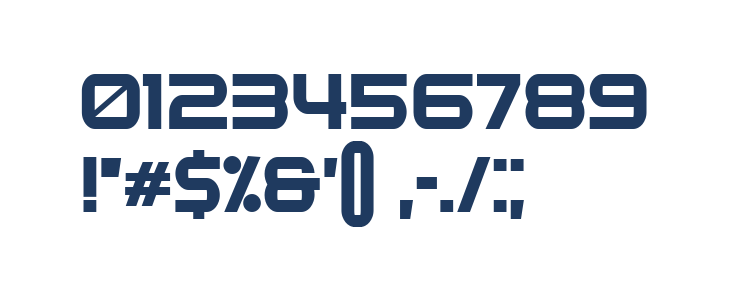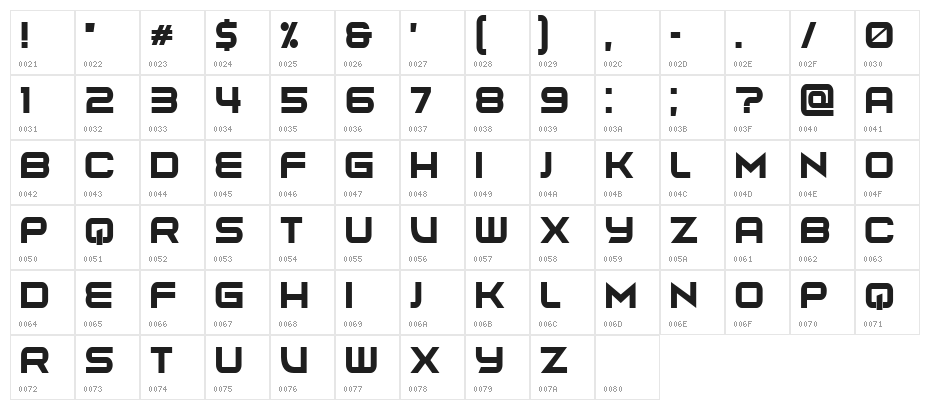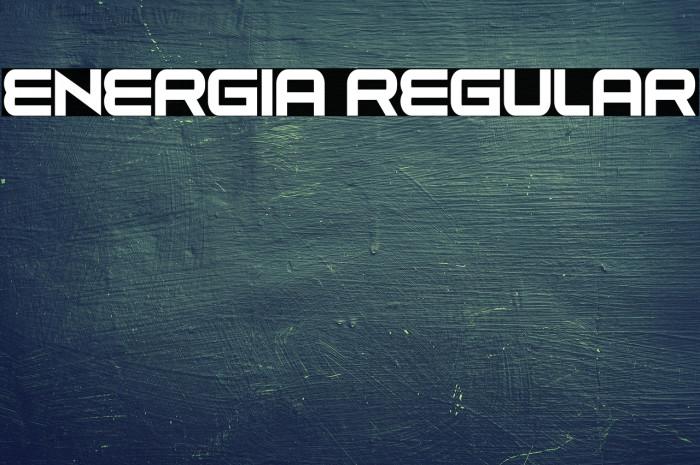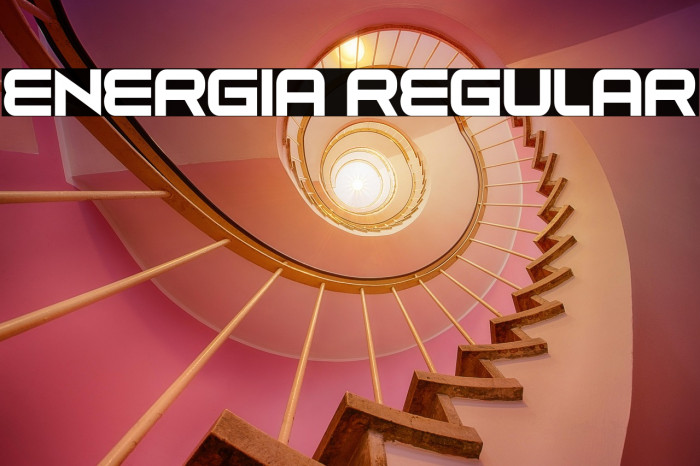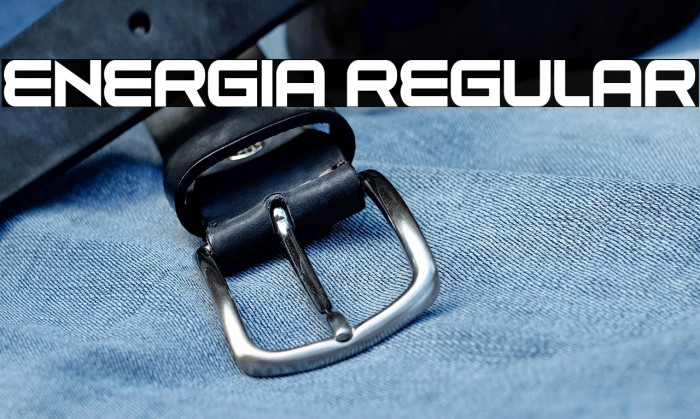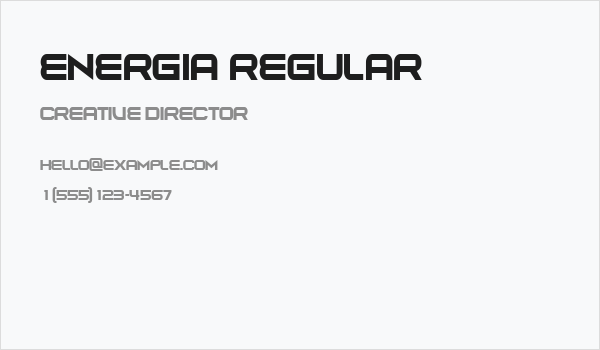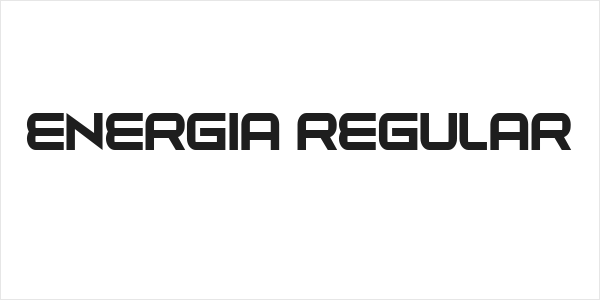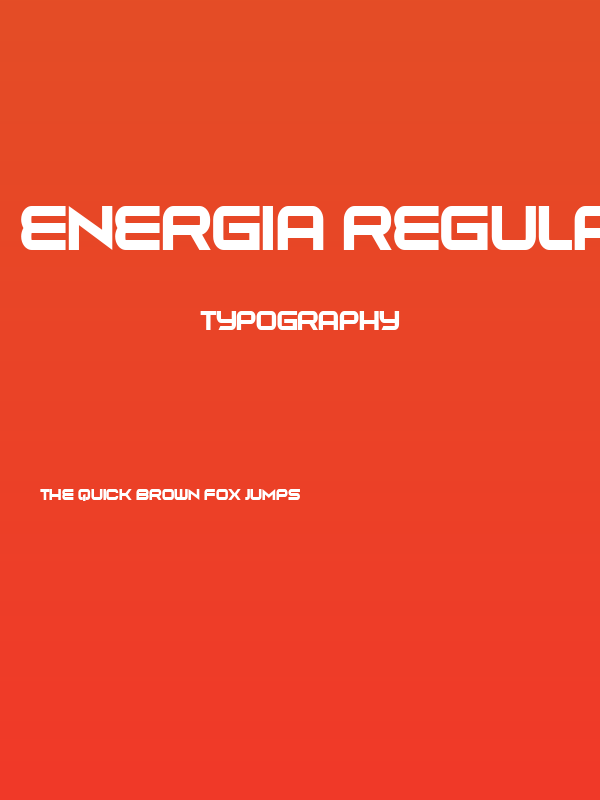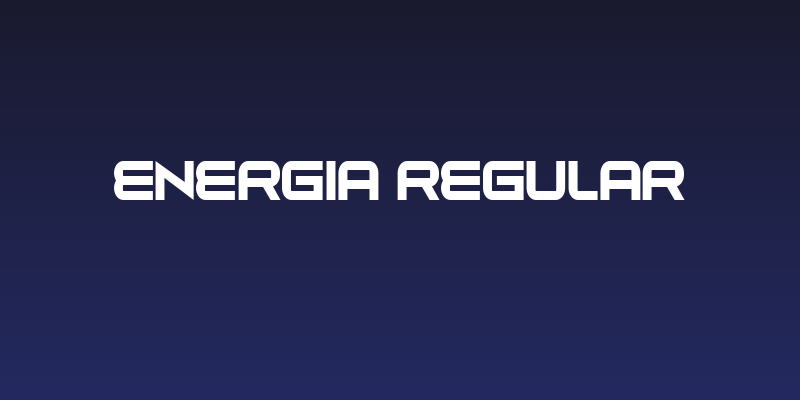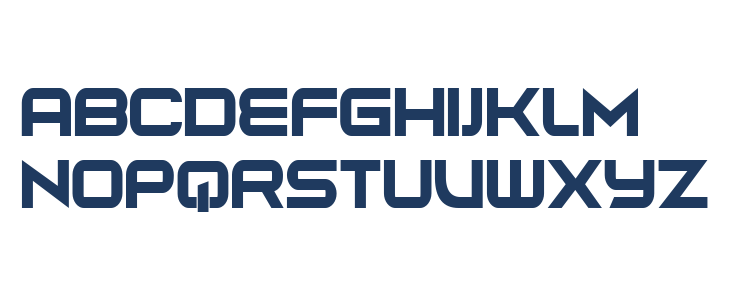
Energia Regular Font
Energia Regular Description
This font exhibits a bold, geometric style with a futuristic and industrial feel. The characters are constructed with clean, straight lines and sharp angles, giving them a strong and assertive appearance. The uppercase letters are uniform in height, while the lowercase letters maintain a consistent baseline, enhancing readability. The numerals are equally bold and follow the same geometric design, ensuring they stand out clearly. Special characters are designed to match the overall aesthetic, making them suitable for various applications. The font's modern and sleek design makes it ideal for projects that require a contemporary and impactful look.
| Proposed Projects | Ideal for technology branding, futuristic posters, video game titles, and modern advertising campaigns. |